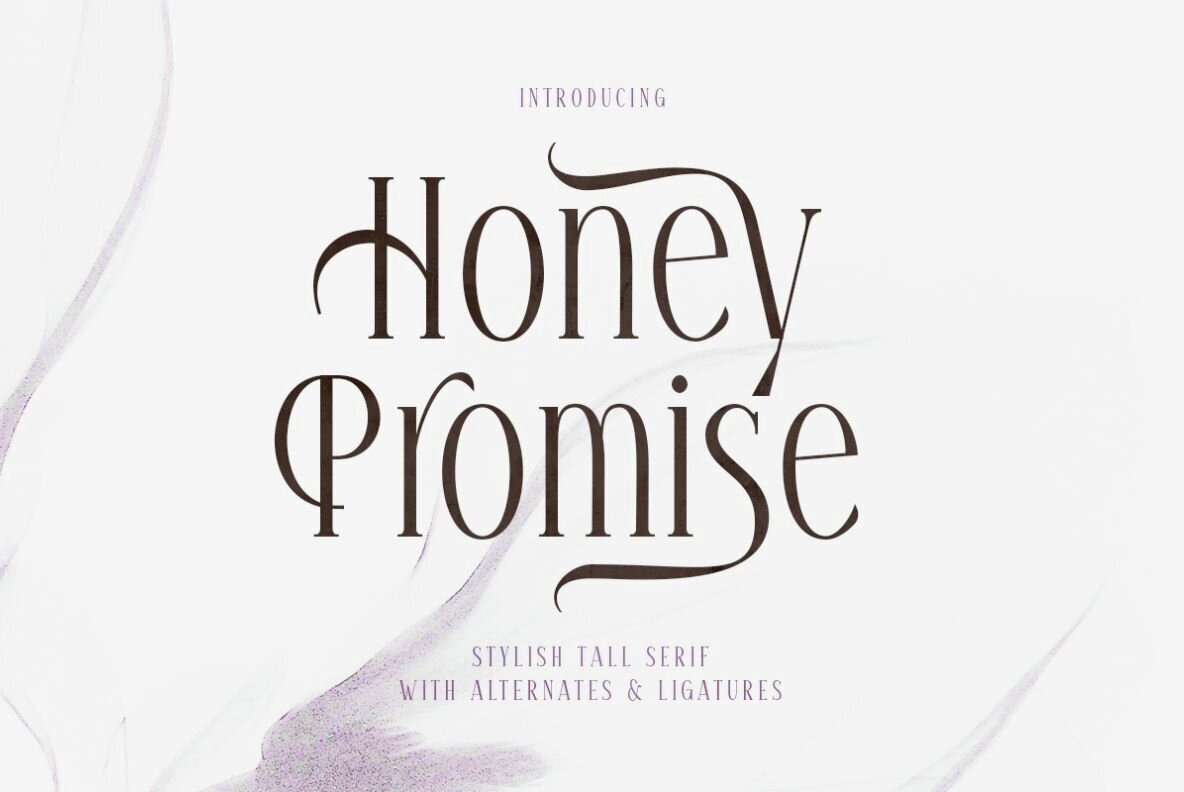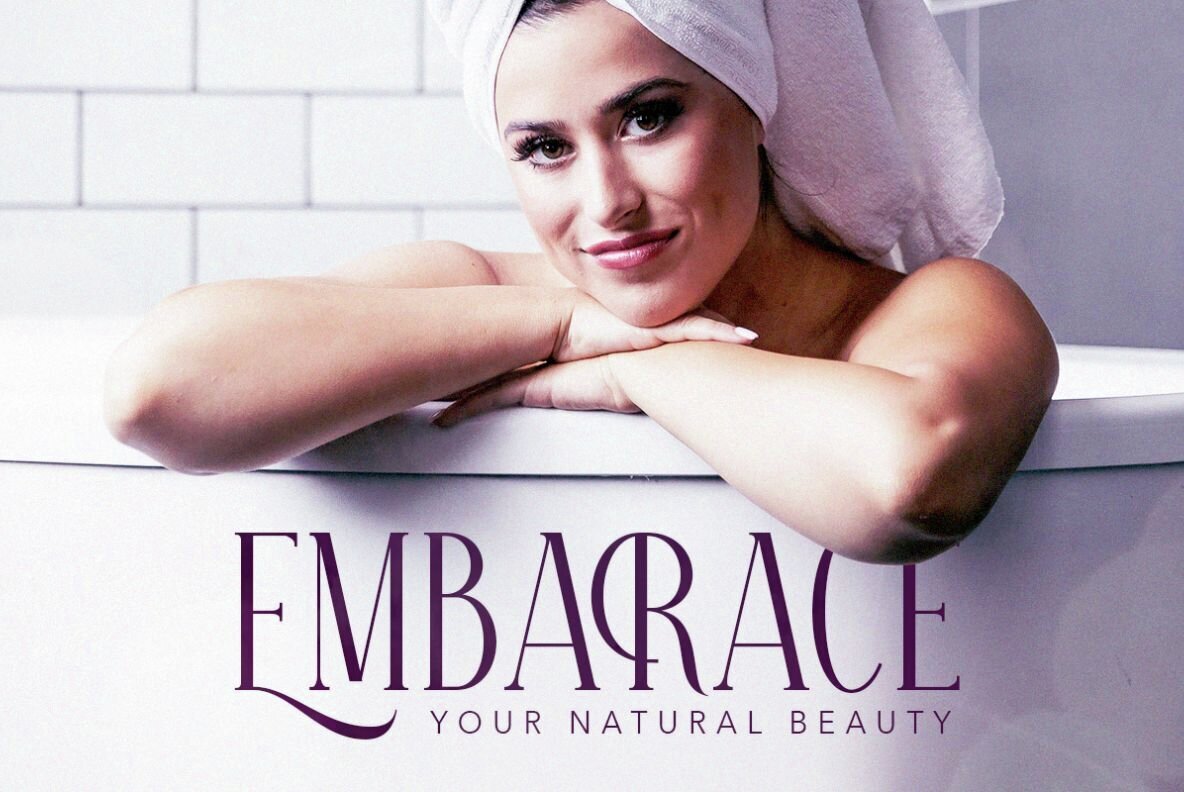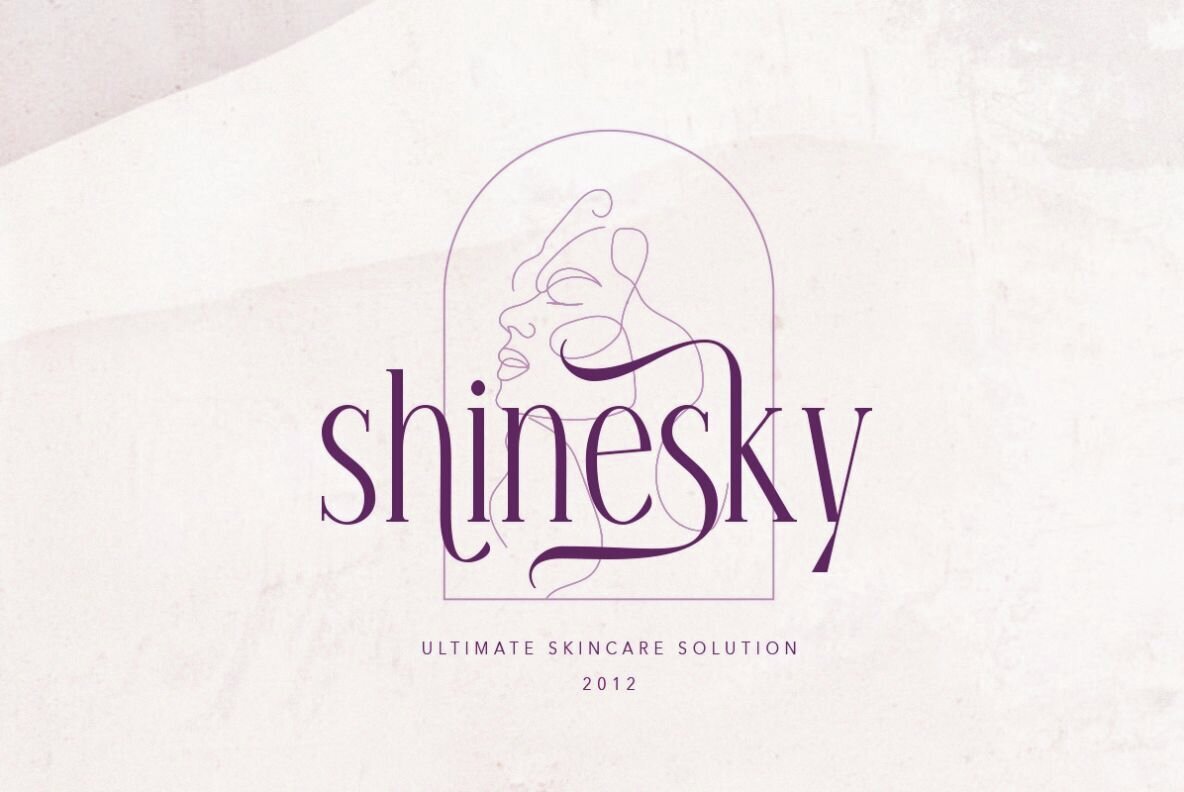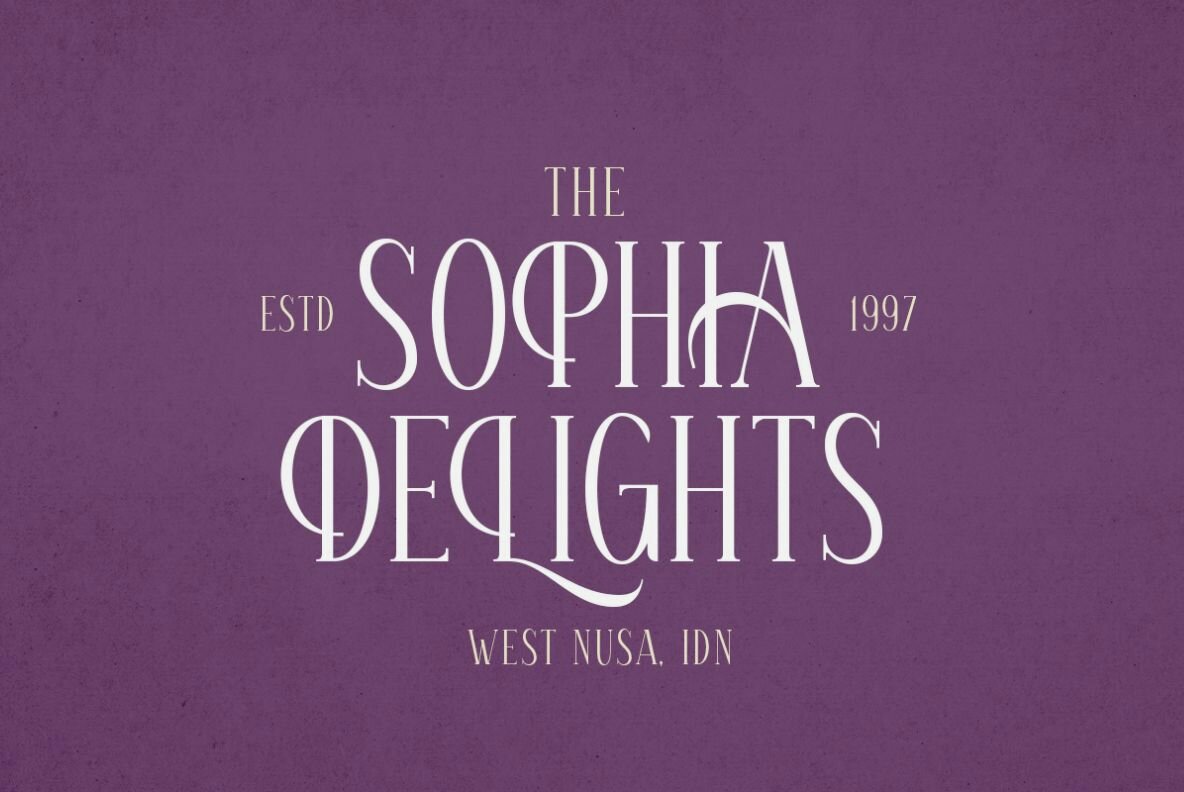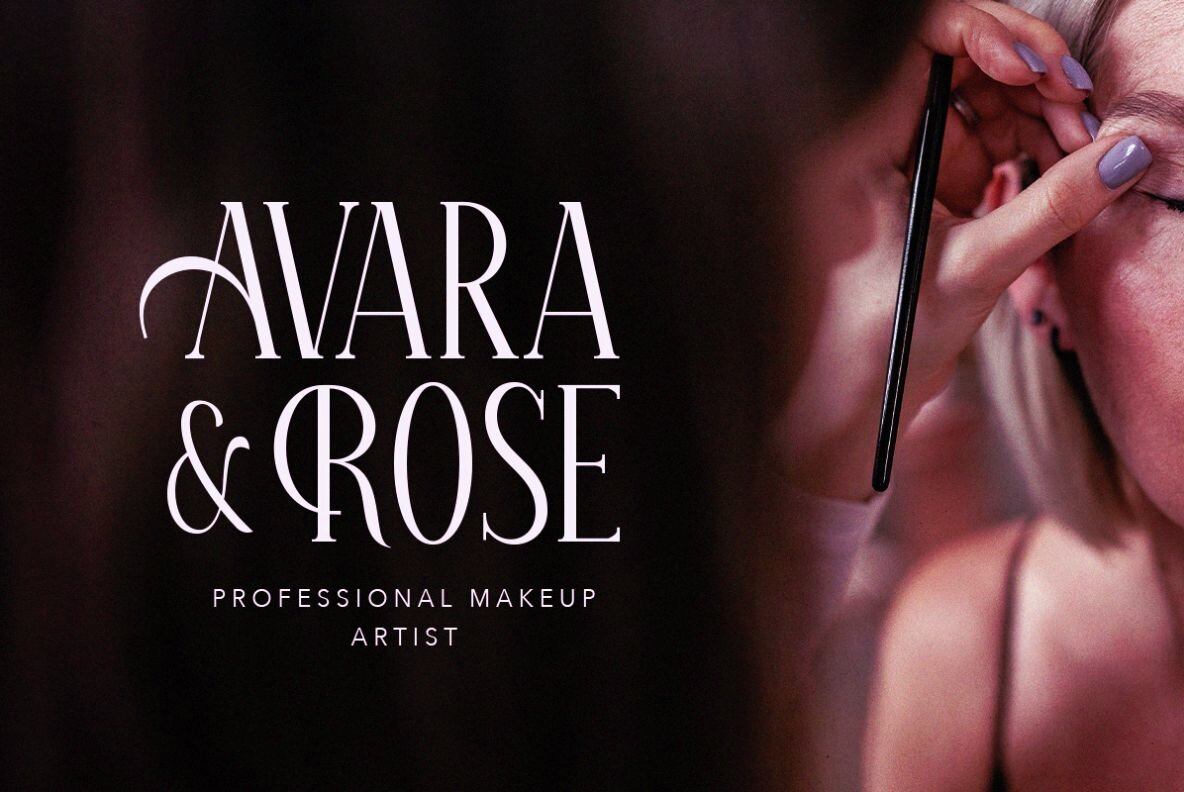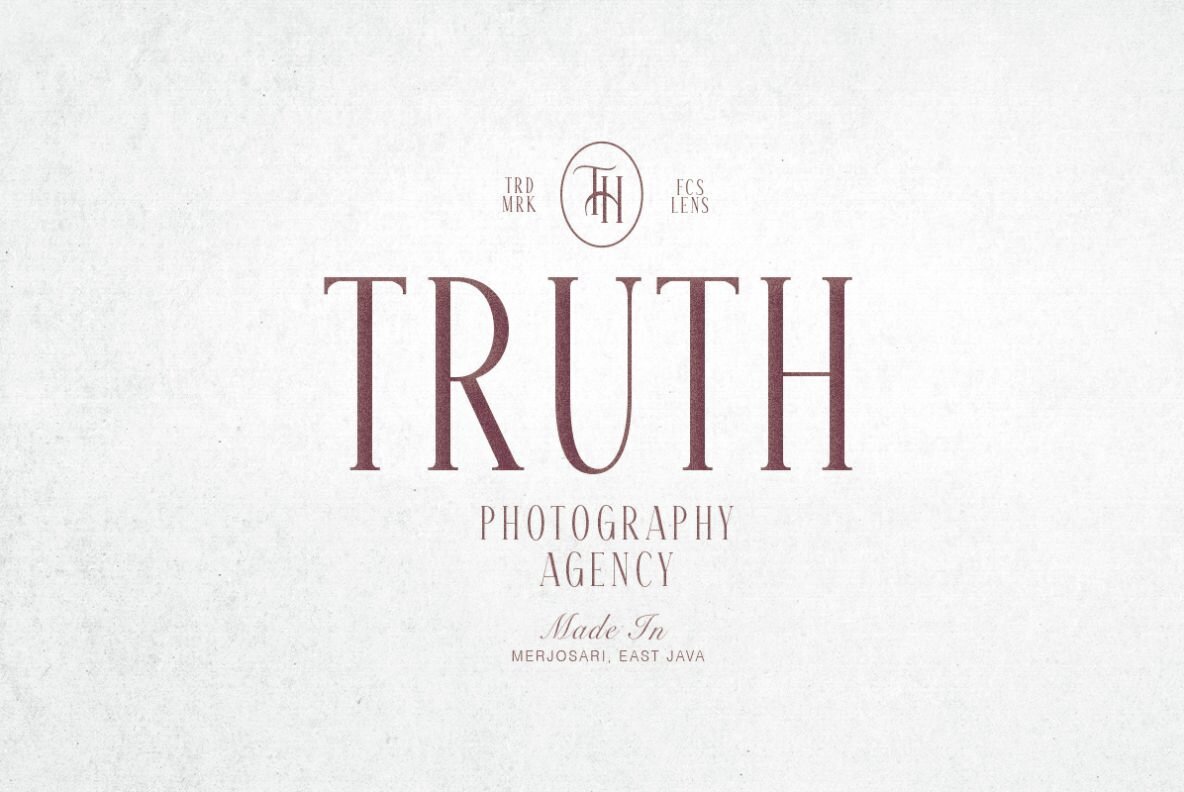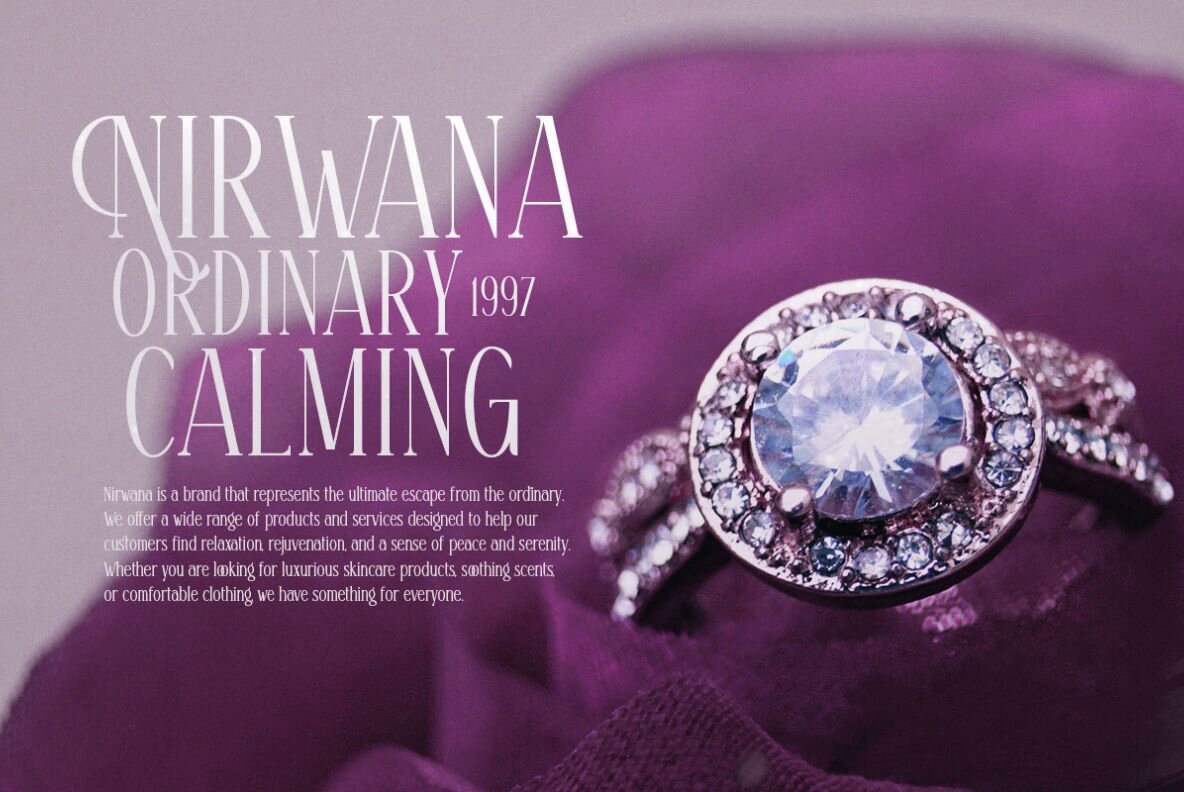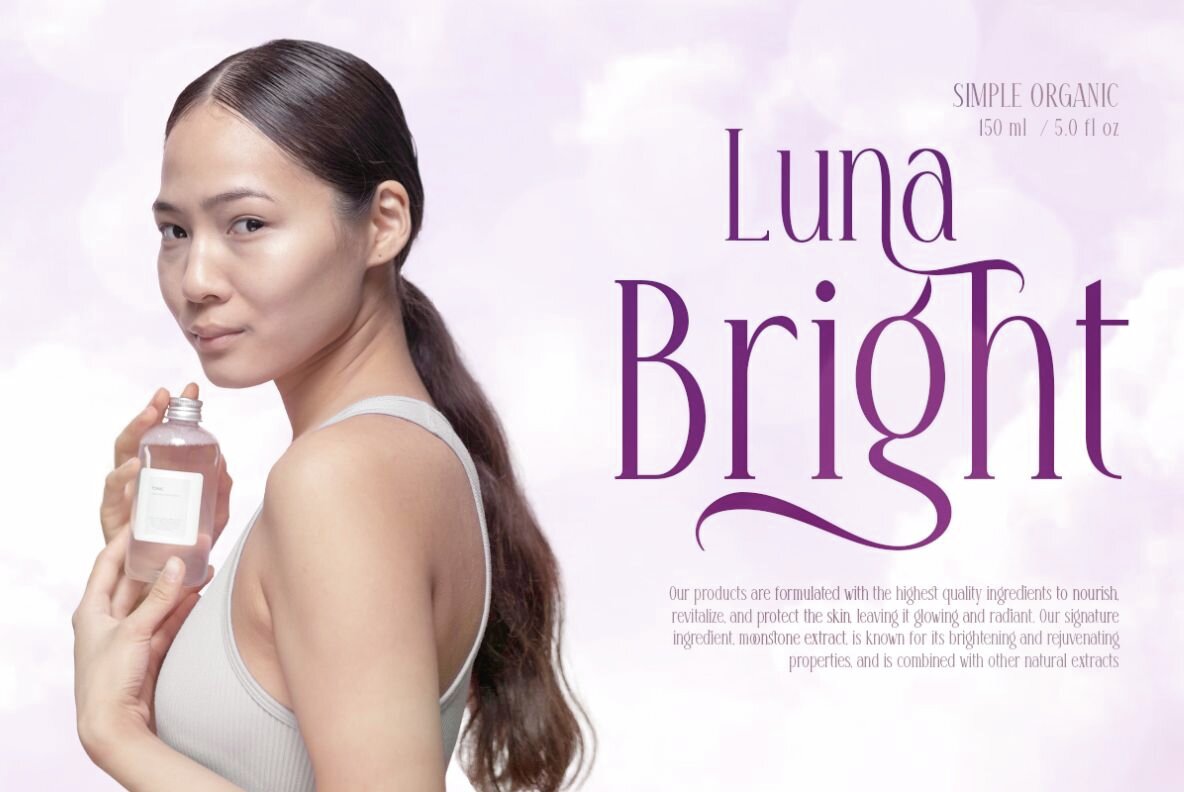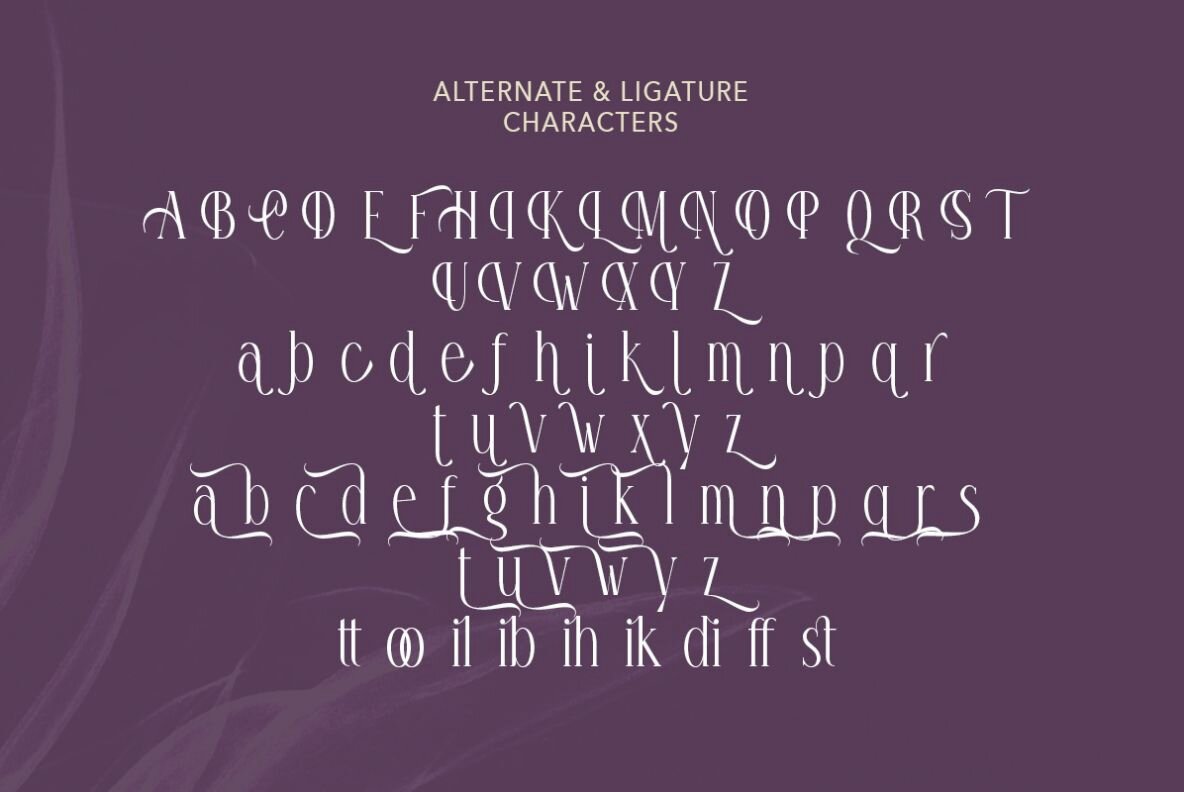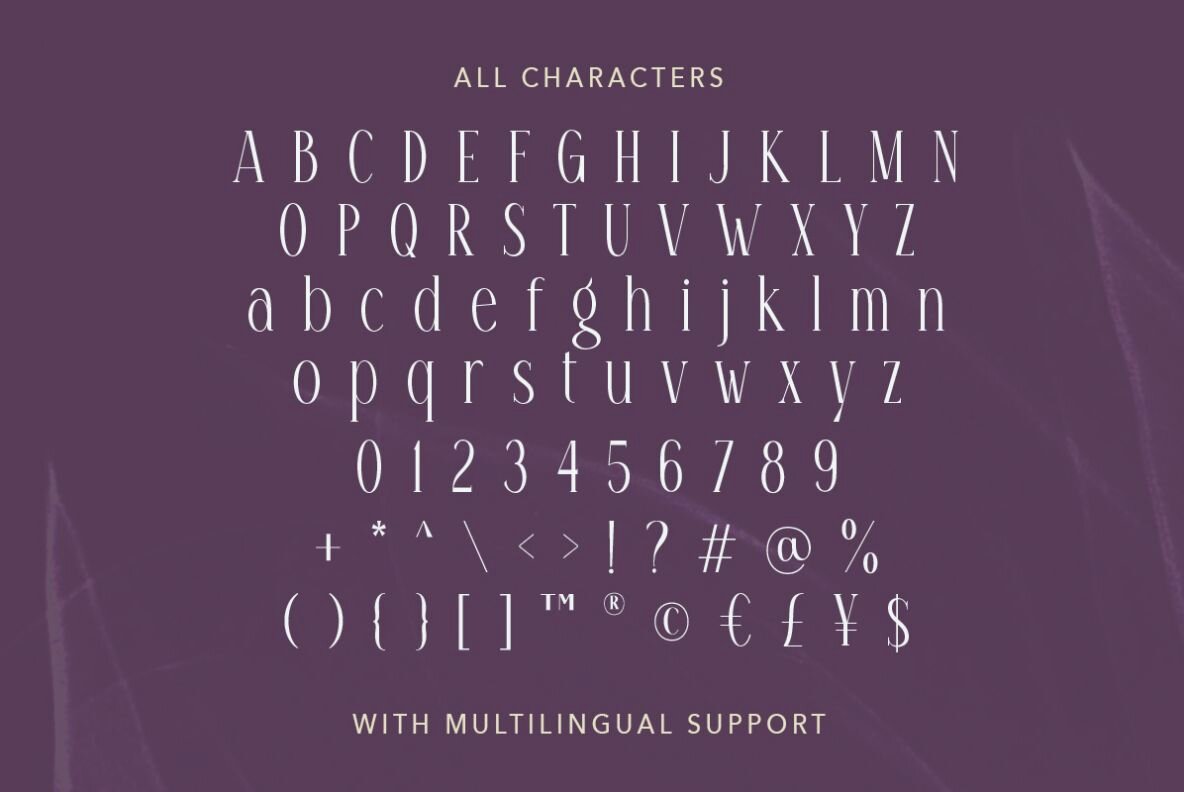
Honey Promise Font
Honey Promise Regular
Honey Promise is a chic tall serif font, ideal for creating elegant and simple brand identities. Designed with versatile style in mind, it seamlessly adapts to applications like logotypes, branding projects, wedding invitations, and quotes. This font offers a selection of alternates and ligatures, adding unique flair and sophistication to any design.
In addition to its stylish design, Honey Promise supports multiple languages, broadening its usability across various projects and audiences. Its combination of elegance and functionality makes it a perfect choice for designers seeking to enhance their visual communications with a touch of class.